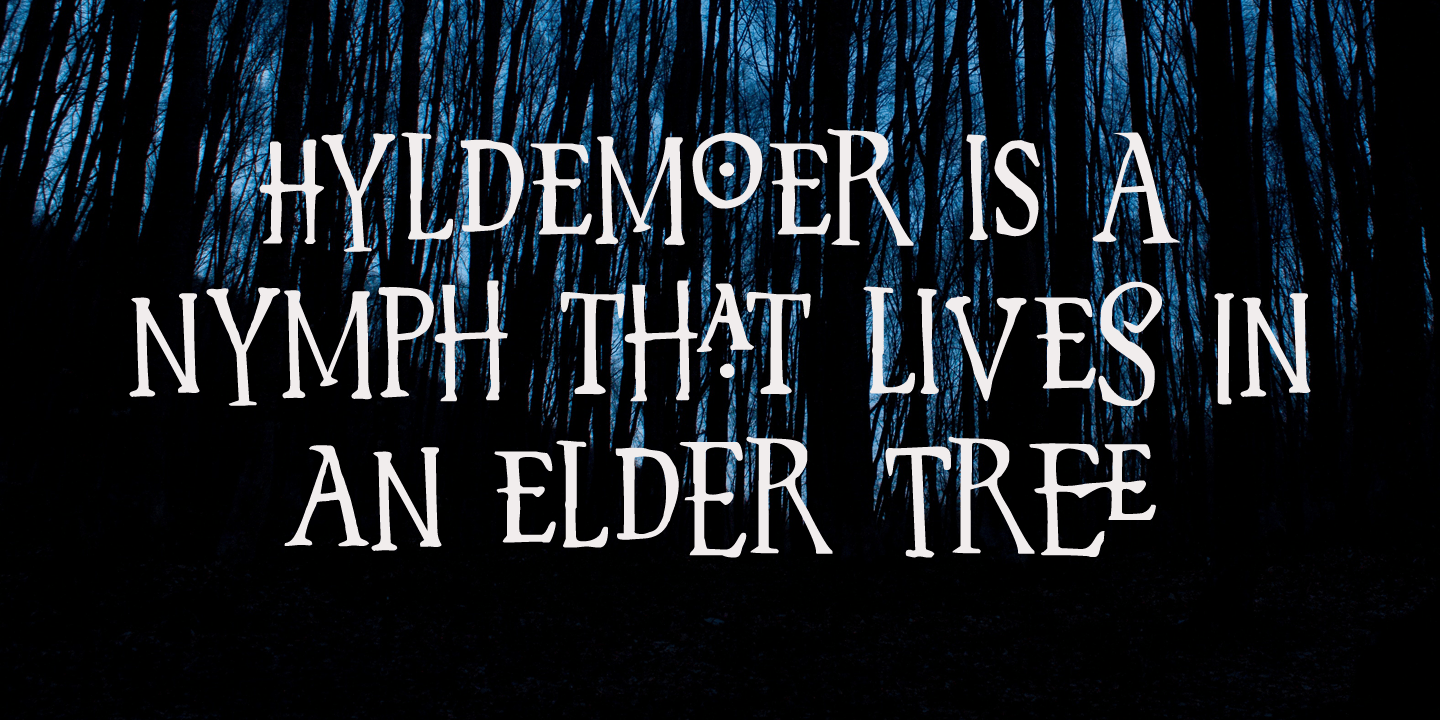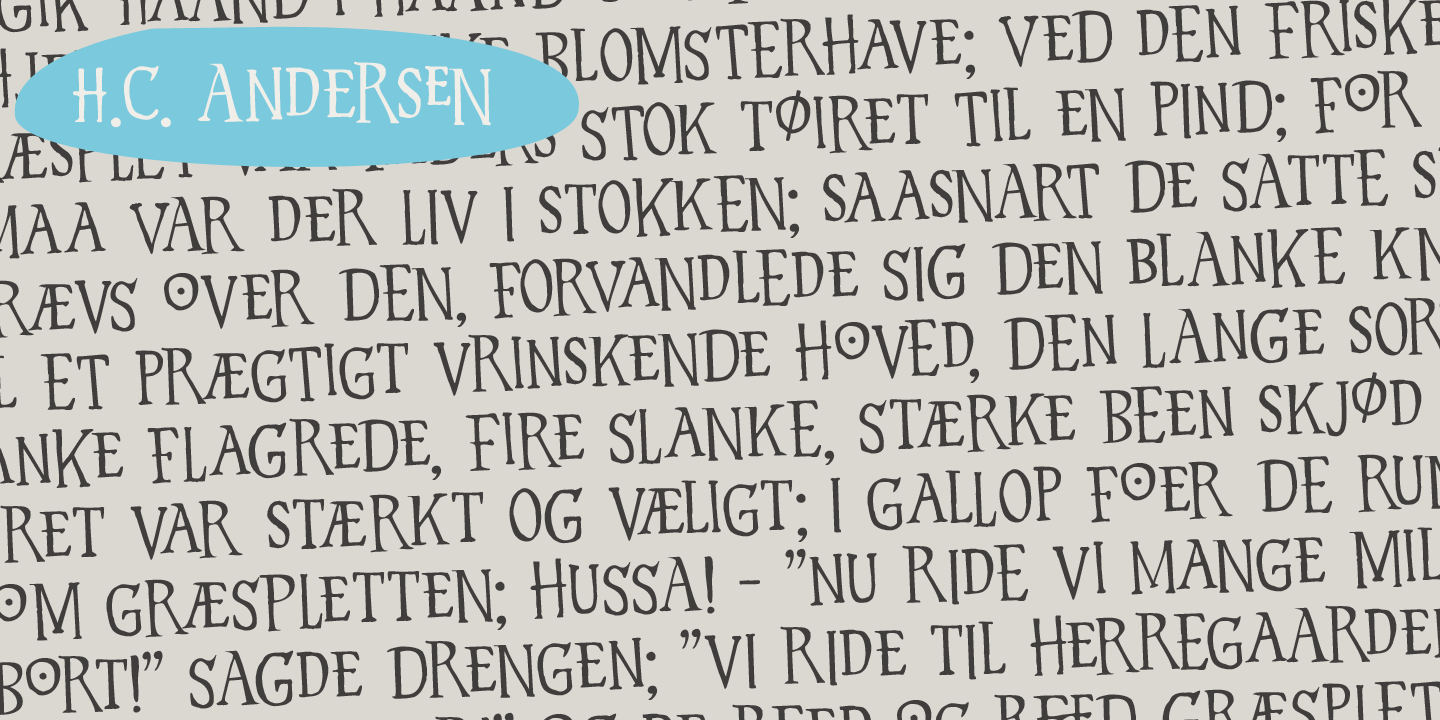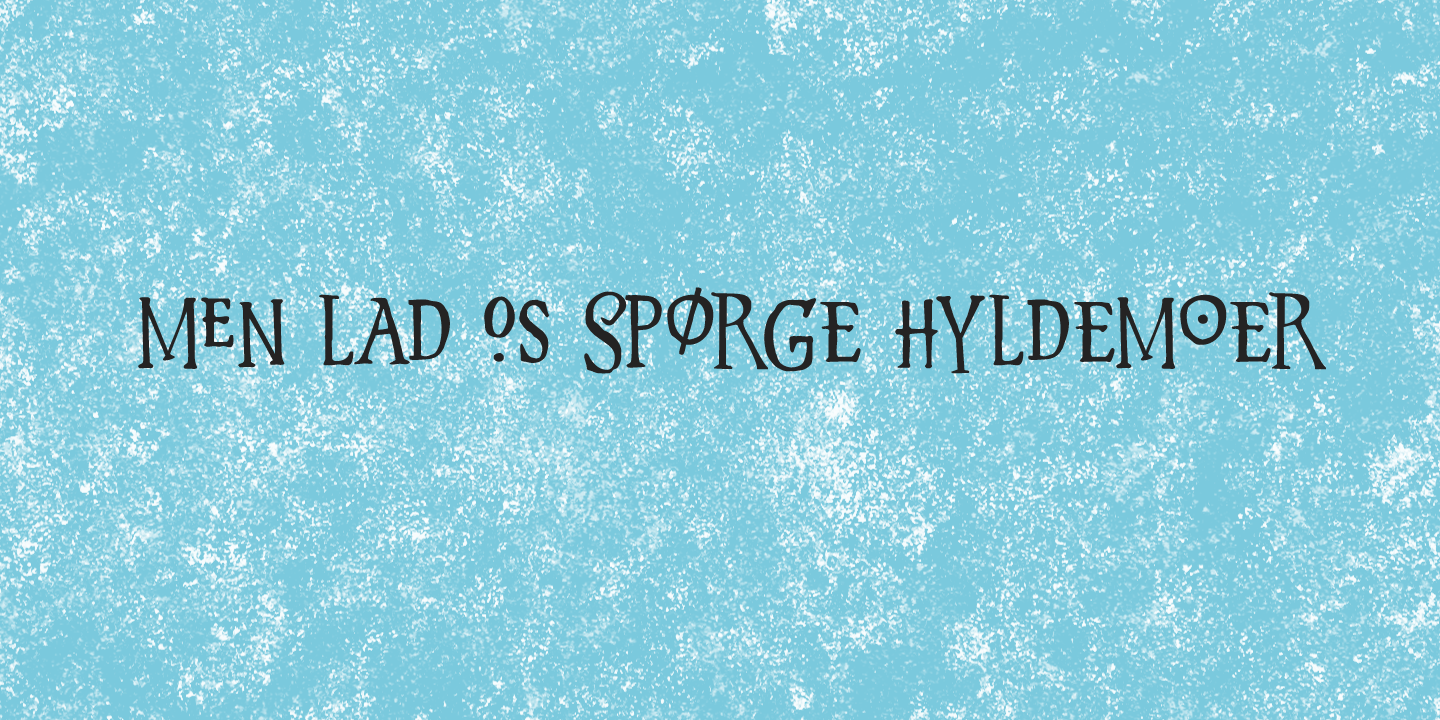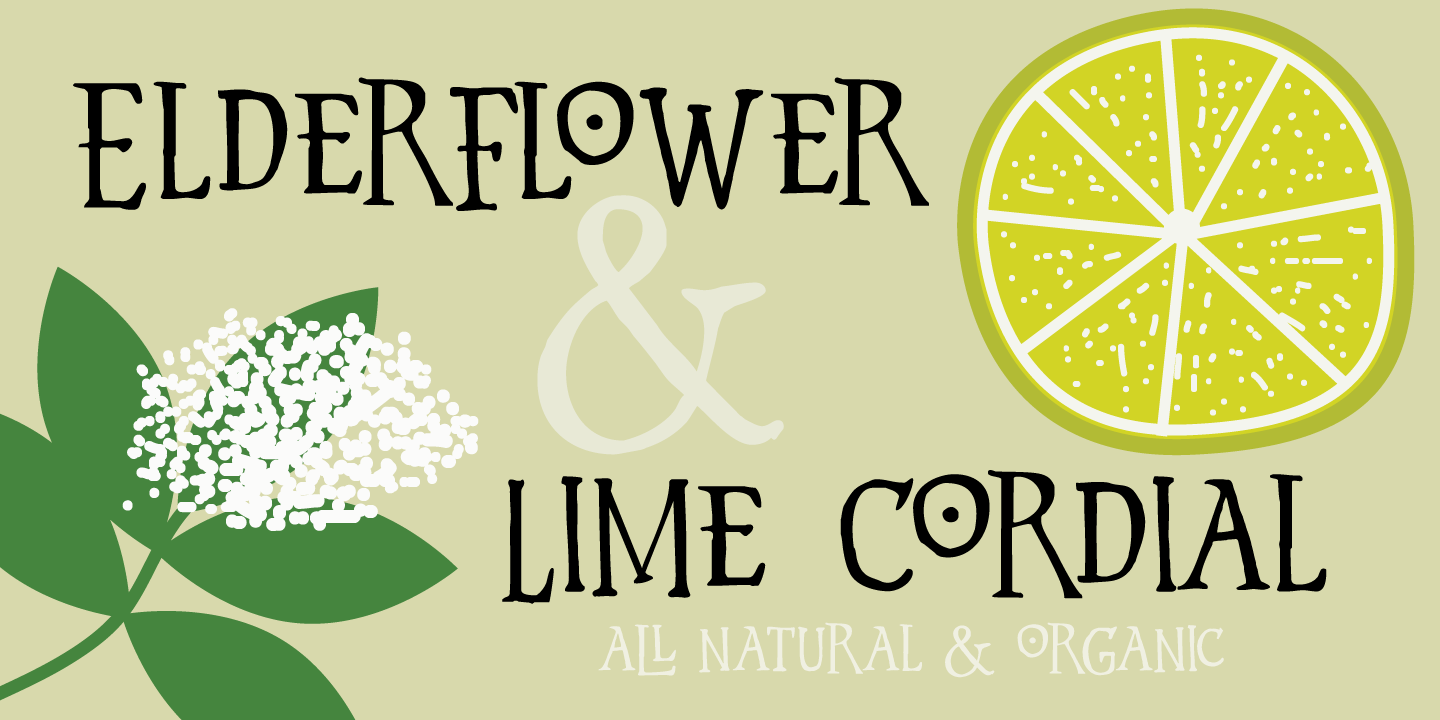
About Hyldemoer
Hyldemoer (in Nordic folklore) is a tree spirit, or nymph, who lives in elder trees. H.C. Andersen also wrote a story about Hyldemoer (?The Little Elder-Tree Mother? in English). Hyldemoer font is based on my Mysterious font and the first letters of…